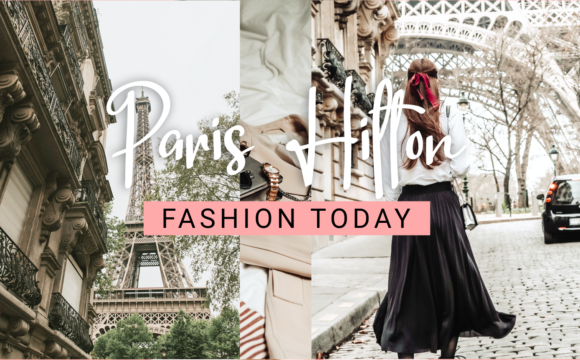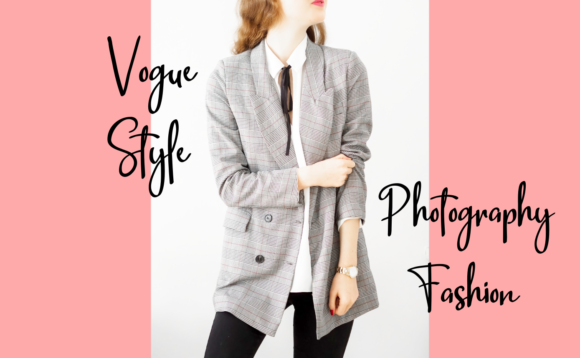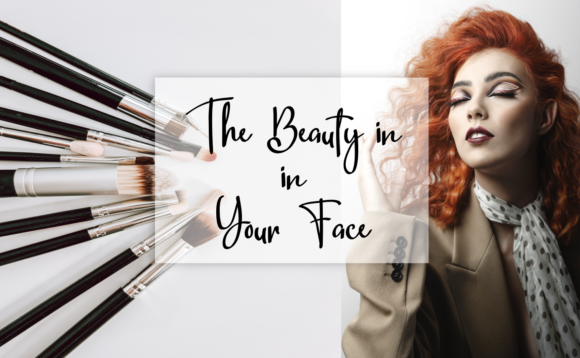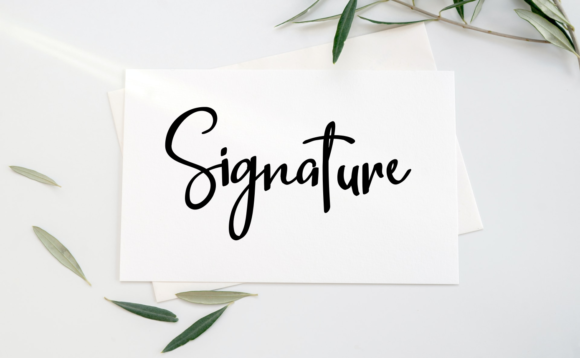
The Perfect Touch of Whimsy: Unveiling Fashion Font
Do you remember the thrill of doodling in the margins of your notebook as a child? The joy of bringing your thoughts and ideas to life with a simple, yet expressive line? For many creatives, that carefree spirit of doodling is a vital part of their design process. And that’s exactly why Fashion Font is about to become your new best friend.
This charming handwritten font is designed specifically for adding a personal touch to your chalkboard quotes, teaching materials, and other creative projects. With its delicate lines and authentic feel, Fashion Font brings a sense of warmth and approachability to any design. Whether you’re a teacher looking to make your lesson plans more engaging or a designer seeking to add a touch of whimsy to your next project, Fashion Font is the perfect tool to help you achieve your vision.
Fashion Font Key Features
- Unique Characteristics: Fashion Font features a unique blend of elegant and modern design elements, with intricate details and subtle flair
Fashion Font Review
As a designer, I was excited to dive into Fashion Font, a typeface that promises to bring style and sophistication to any design project. ✨ From the get-go, I was impressed by the font’s sleek and modern aesthetic, which is perfect for fashion and lifestyle brands. The font’s clean lines and subtle curves make it easy to read, even at smaller font sizes.
One of the standout features of Fashion Font is its versatility. It’s available in a range of weights, from light to bold, which makes it perfect for creating visual hierarchies and adding emphasis to key messages. The font also comes with a range of alternate characters and ligatures, which can add an extra touch of flair to your designs.
However, there are a few limitations to consider. ⚠️ The font’s limited character set may not be suitable for languages that require a wider range of characters. Additionally, the font’s design may not be to everyone’s taste, and some may find it too modern or trendy.
- Available in multiple weights (light, regular, bold, etc.)
- Alternate characters and ligatures for added flair
- Suitable for fashion, lifestyle, and modern brands
- May not be suitable for languages with limited character sets
Fashion Font Practical Application Guide
Here are some tips and common use cases for Fashion Font:
- Use Fashion Font for fashion-related designs, such as clothing labels, runway shows, and fashion magazines.
- Experiment with different font styles and combinations to create unique and eye-catching designs.
- Use Fashion Font to add a touch of elegance and sophistication to your designs.
Alternatives to Fashion Font for Designers
Comparison to Fashion Font: Montserrat is more minimalist and lacks the ornate details found in Fashion Font. It is a better choice when you need a font that is easy to read on screens.